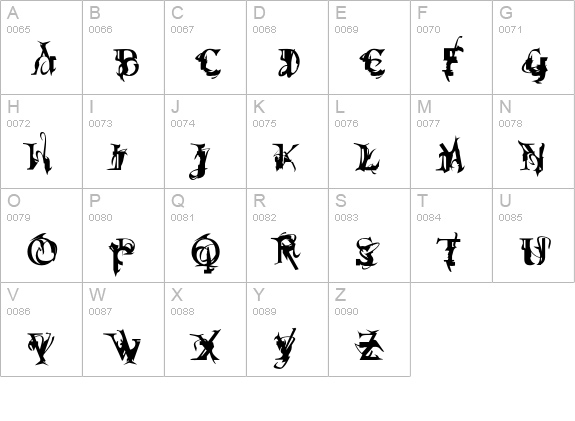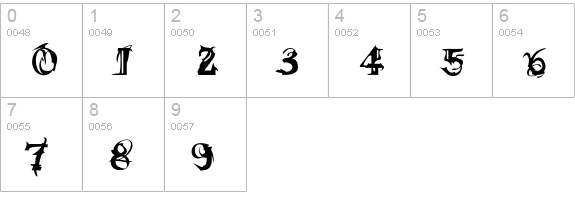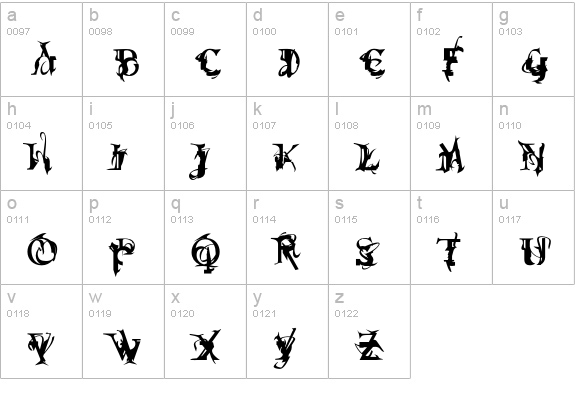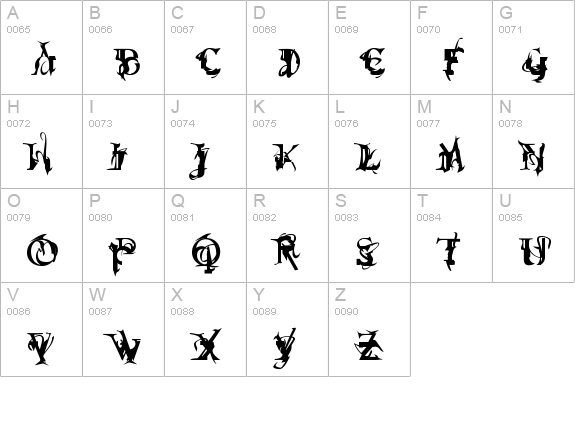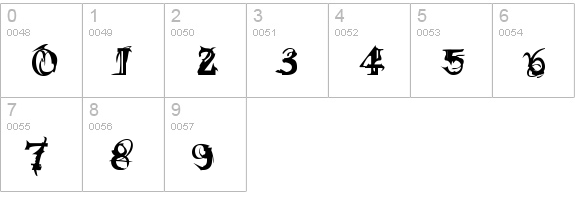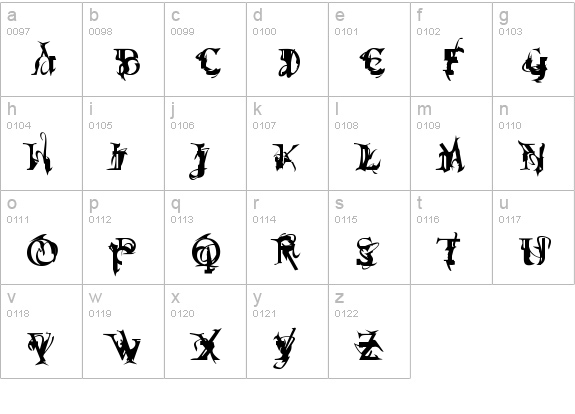
Osprey Font Details
Introducing Osprey font - a stunning display typeface designed to captivate and impress. With its elegant curves and unique styling, Osprey font is perfect for adding a touch of sophistication to your projects. Whether you're designing a logo, poster, or website, this versatile font will elevate your work to the next level. The best part? Osprey font is completely free to download at FontsMarket.com! That's right, you can enhance your designs with this beautiful font without spending a dime. Don't miss out on the opportunity to add Osprey font to your collection and unleash your creativity today.